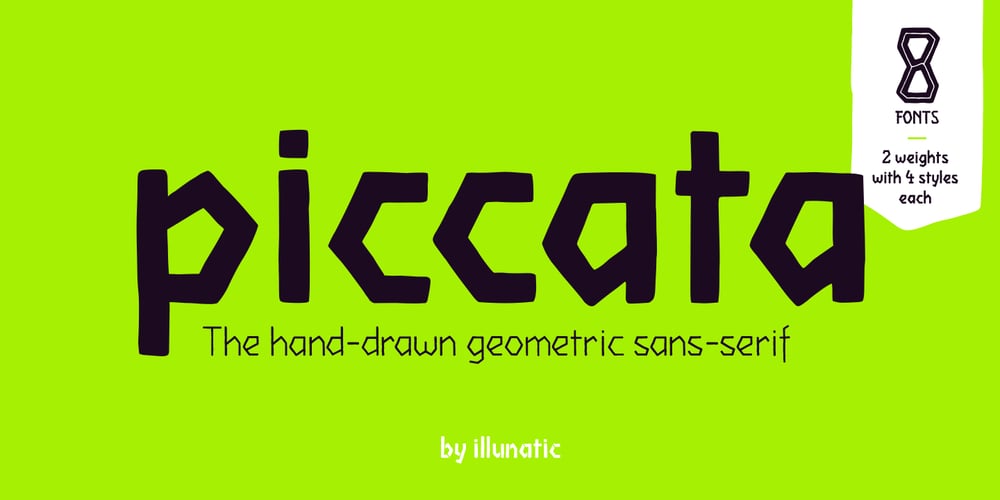
Piccata Font Family was designed by Christian Schaarschmidt and published by Illunatic. Piccata contains 8 styles and family package options. Piccata is a hand-drawn font family consisting of 2 weights with 4 styles each. Piccata has been built up from straight brush strokes arranged in a geometric grid. It is intended to work best in small and medium sized texts, but will also make a perfect logo for your next beer label, coffee packaging or shirt design. Combine the 8 styles to create interesting contrasts and rhythms. Piccata will spice up your artworks and is a new fresh approach to the handmade look in type design.